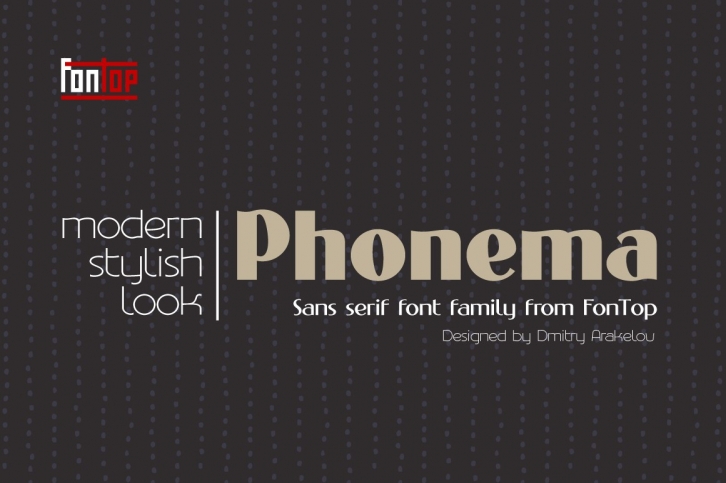
PHONEMA family is a trendy and unique font with an authentic style. It was designed by Fontop and it's a great choice for creative people who need such a font. It was released on July 25, 2019 and the file size is 17.89 MB. PHONEMA family will add an organic vibe to any design idea!